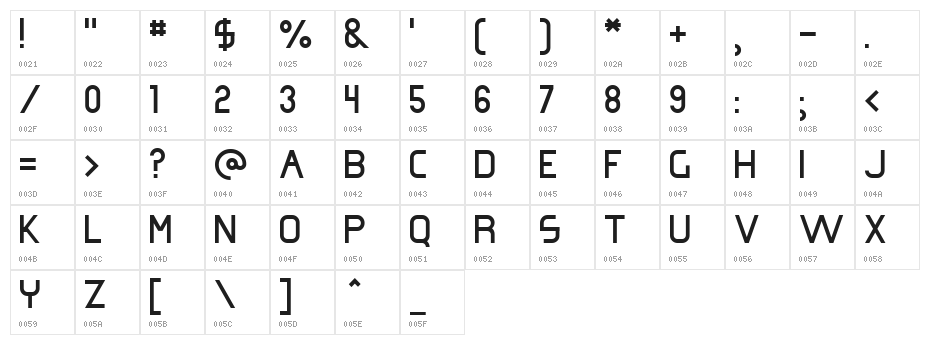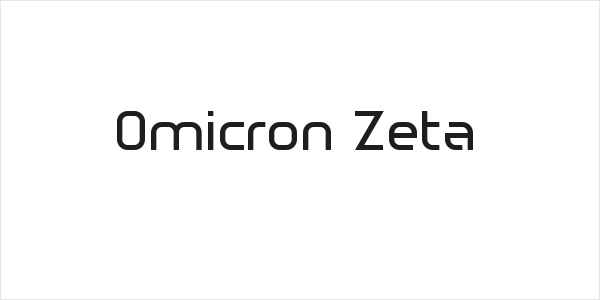
Omicron Zeta Font
Omicron Zeta Description
This font features a clean, modern design with a geometric structure. The characters are well-balanced, with a uniform stroke width that gives it a sleek and professional appearance. The uppercase letters are bold and assertive, while the lowercase letters maintain a consistent flow, making it highly legible. The numerals are distinct and easy to read, and the special characters are designed to complement the overall style. This font is versatile, suitable for both digital and print media, offering a contemporary look that can enhance various design projects.